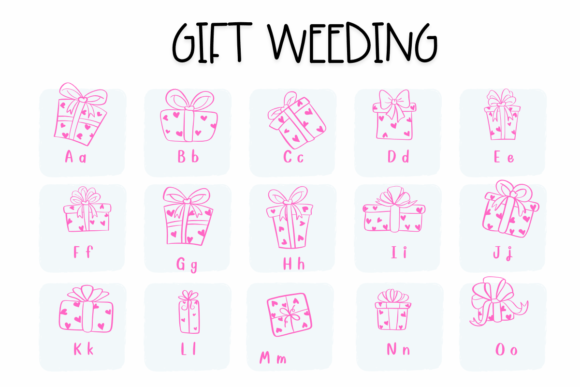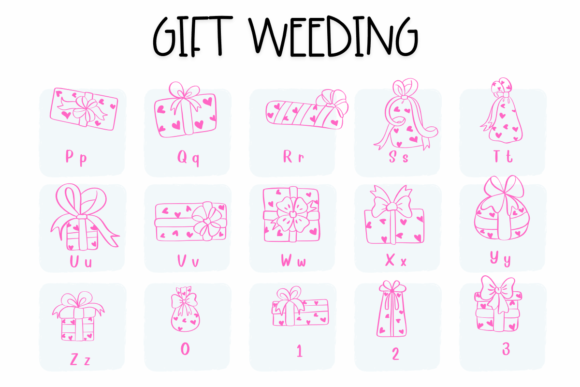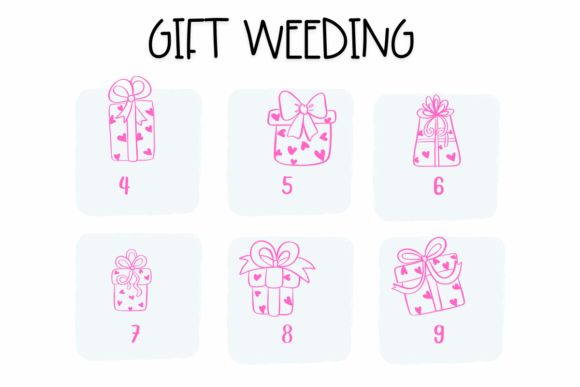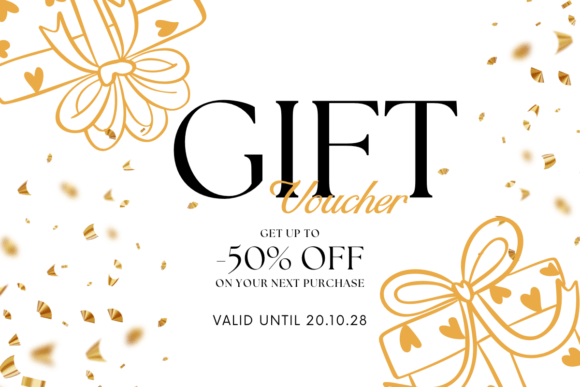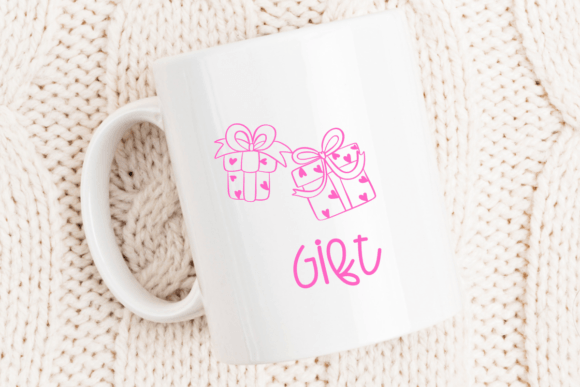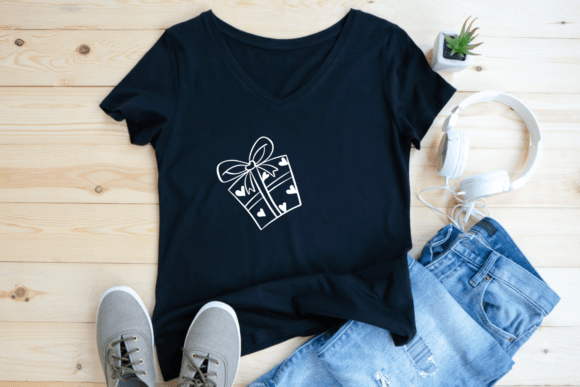
The Gift of Creativity: Unlocking the Potential of Gift Weeding Font
I’ll never forget the time I was working on a wedding invitation project for a dear friend. The design was going great, but something was missing – the perfect font to tie everything together. That’s when I stumbled upon Gift Weeding, a charming dingbats font with a sketchy theme that instantly elevated my design. In this article, I’ll share my experience with Gift Weeding, its features, and how to make the most of it in your creative projects.
A Honest Review: The Good and the Quirky
What I Love About Gift Weeding ✨
- Unique sketch style that adds a personal touch to any design ✅
- Perfect for wedding invitations, DIY projects, crafts, and decorations 🎉
- Easy to use and pairs well with a variety of fonts 📚
- OpenType features and glyphs for added creativity 🤩
Small Quirks to Keep in Mind 🤔
- Some characters may require manual kerning for optimal spacing ⚠️
- Limited availability of stylistic alternates compared to other fonts 🤔
The Story Behind Gift Weeding: A Designer’s Inspiration
Gift Weeding was created with the intention of providing a unique, hand-drawn feel to creative projects. The designer, inspired by traditional wedding invitations and DIY crafts, aimed to craft a font that would add a personal touch to any design. With its sketchy theme and OpenType features, Gift Weeding has become a popular choice among designers and crafty hobbyists alike.
Q: What type of projects is Gift Weeding best suited for?
A: Gift Weeding is perfect for wedding invitations, DIY projects, crafts, decorations, logos, and other creative endeavors that require a personal touch.
Q: Is Gift Weeding suitable for body text?
A: While Gift Weeding is a beautiful font, it’s better suited for headings and titles due to its decorative nature. For body text, consider pairing it with a clear, readable font.